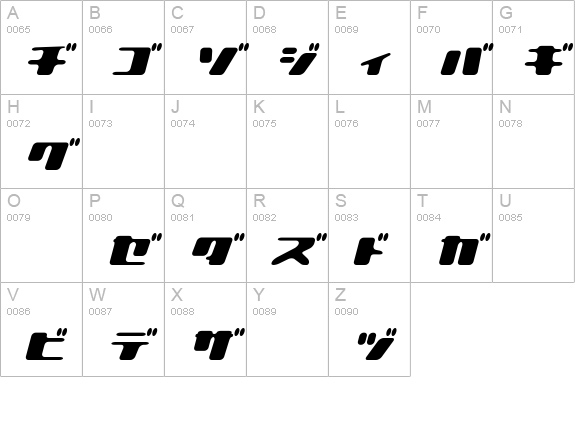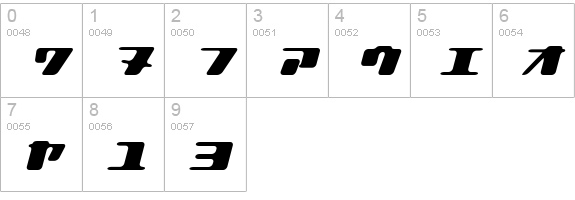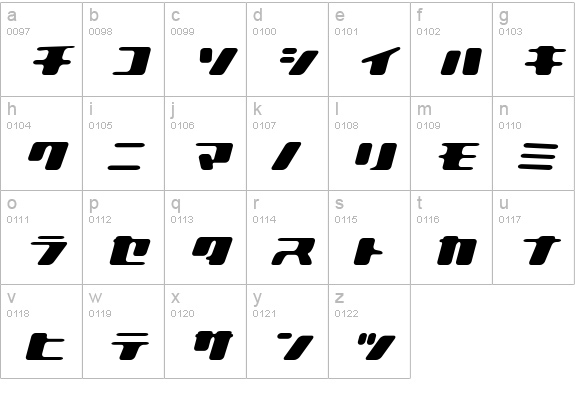
LBIlovely bold italic Kat Font Details
LBIlovely bold italic Kat is a strong, high-contrast, italic variant in the LBIlovely typeface family \xE2\x80\x94 well suited to headlines, attention-grabbing titles, and strong calls-to-action.
Introducing LBIlovely, a stunning bold italic font that is sure to captivate and inspire! This exquisite typeface features a perfect balance of elegance and modernity, making it the ideal choice for a wide range of design projects. With its eye-catching curves and confident strokes, LBIlovely commands attention and adds a touch of sophistication to any text. Whether you're designing a logo, creating branding materials, or crafting a visually stunning website, this font will effortlessly elevate your work to new heights. But the best part? LBIlovely is freely available to download at FontsMarket.com! That's right, you can access this beautiful font at no cost and start incorporating its unique charm into your projects today. Its versatility allows it to seamlessly blend into any design concept, making it a must-have addition to your font collection. This font's bold italic style adds a sense of flair and boldness, making it perfect for headlines, titles, and other prominent text elements. Its exquisite details and carefully crafted letterforms create a sense of elegance and professionalism, ensuring that your message is delivered with impact and style. Whether you're a professional designer or a passionate enthusiast, LBIlovely is the perfect font to unleash your creativity. Its versatility, combined with its bold and italic design, allows for endless possibilities in typography, giving your designs a unique and memorable touch. Don't miss out on the opportunity to enhance your design projects with the captivating beauty of LBIlovely. Download this font for free at FontsMarket.com and watch as your designs come to life with a touch of sophistication and charm.